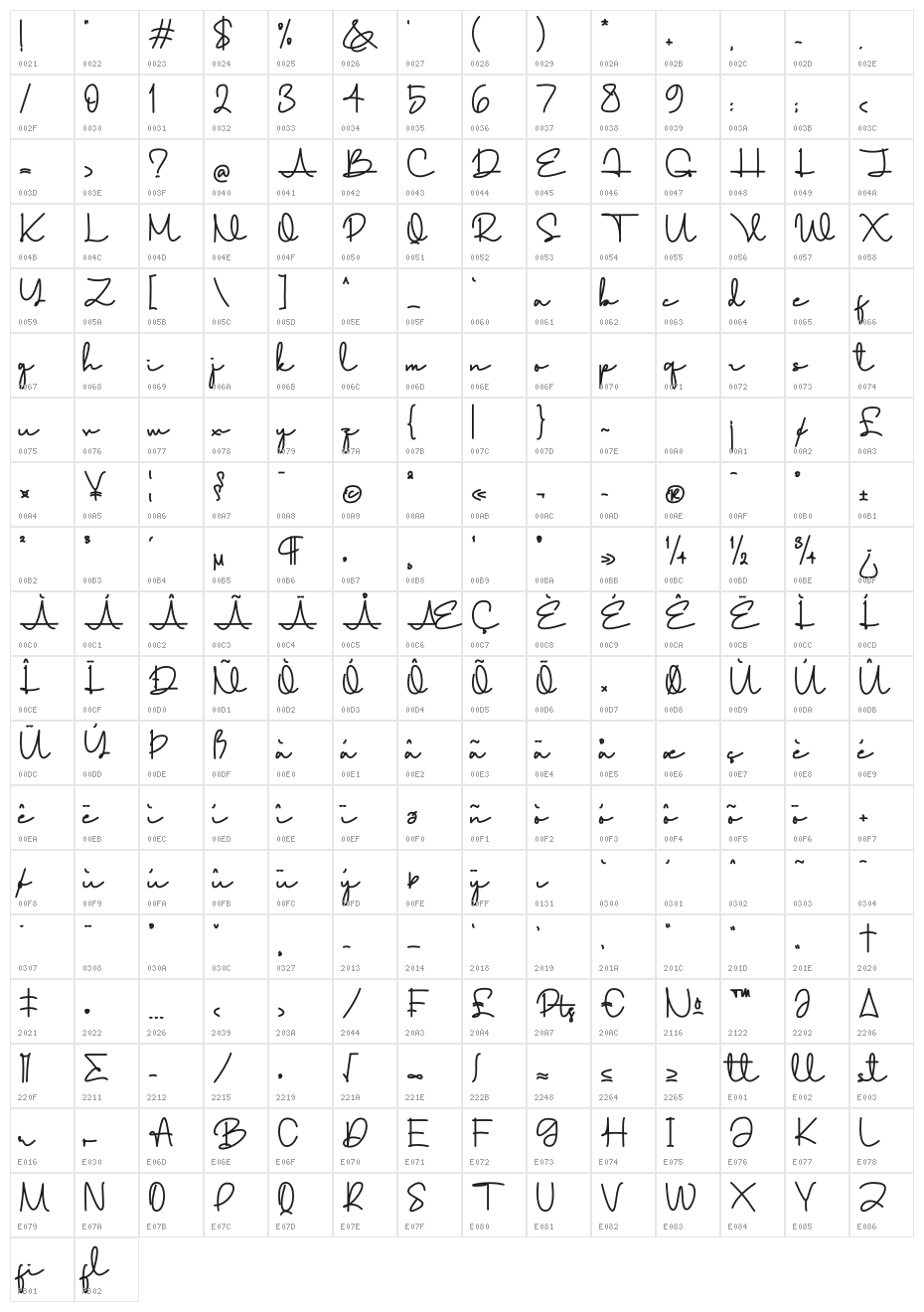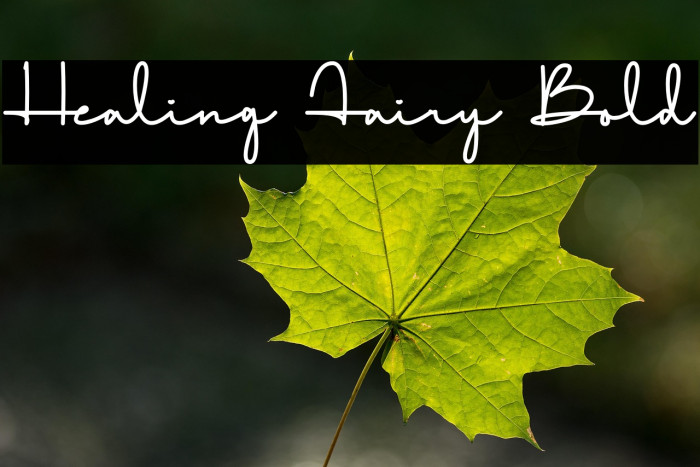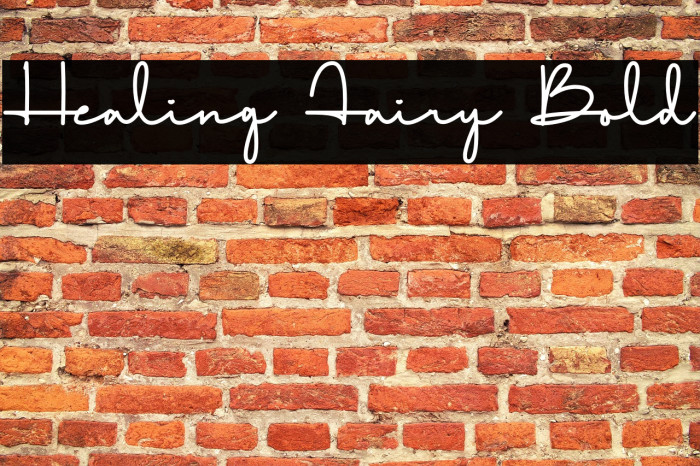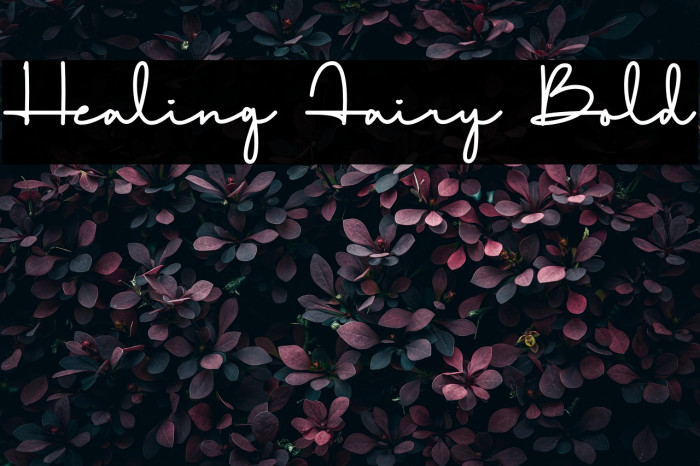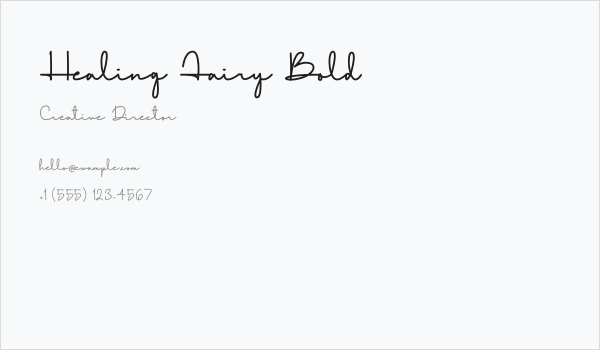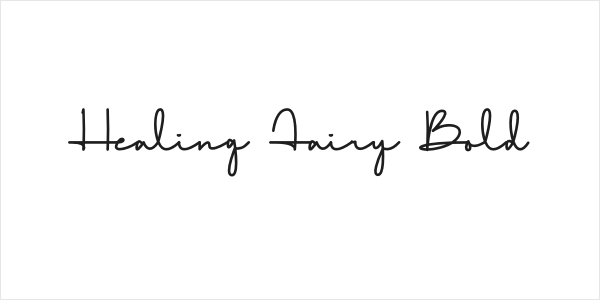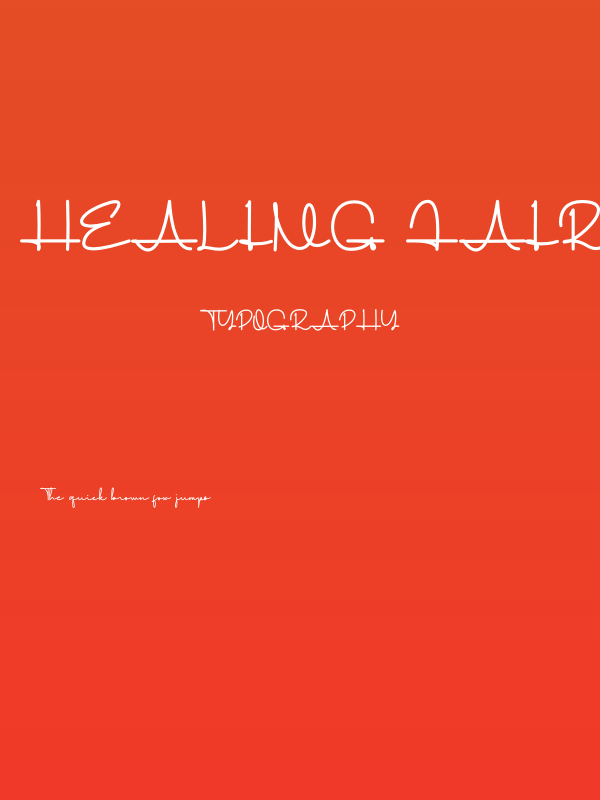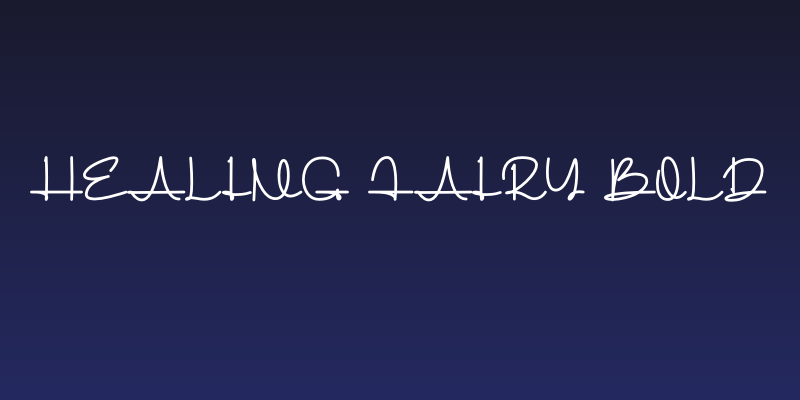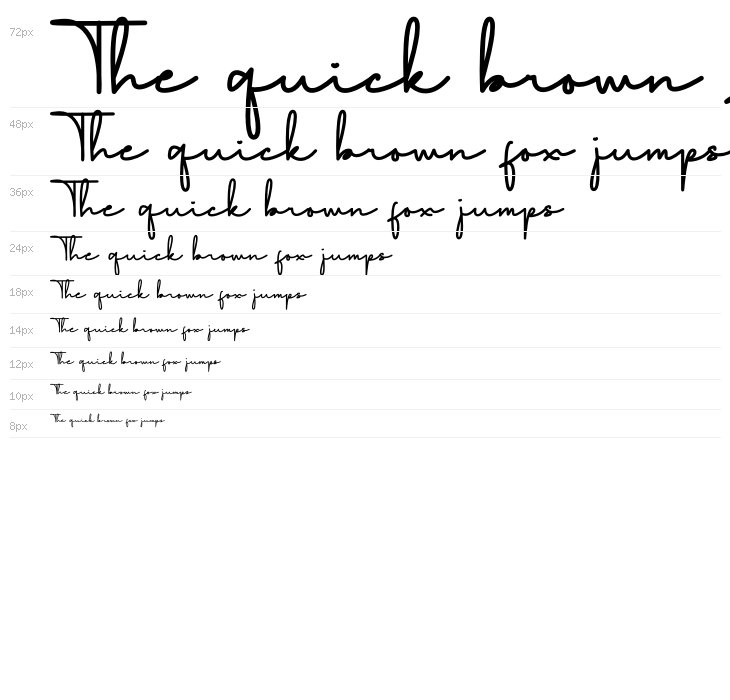
Healing Fairy Bold Font
Healing Fairy Bold Description
A playful, handwritten script font with fluid, connected strokes and a casual, whimsical appearance. The characters are rounded and slightly irregular, giving a friendly and approachable feel. Uppercase and lowercase letters are distinct, with tall ascenders and deep descenders, and the numerals and punctuation maintain the same lively style.
| Overall Style | Decorative, Playful, Casual |
| Use Case | Logos, Headlines, Invitations, Informal body text |
| Proposed Projects | Greeting cards, invitations, children's books, branding, social media graphics. |